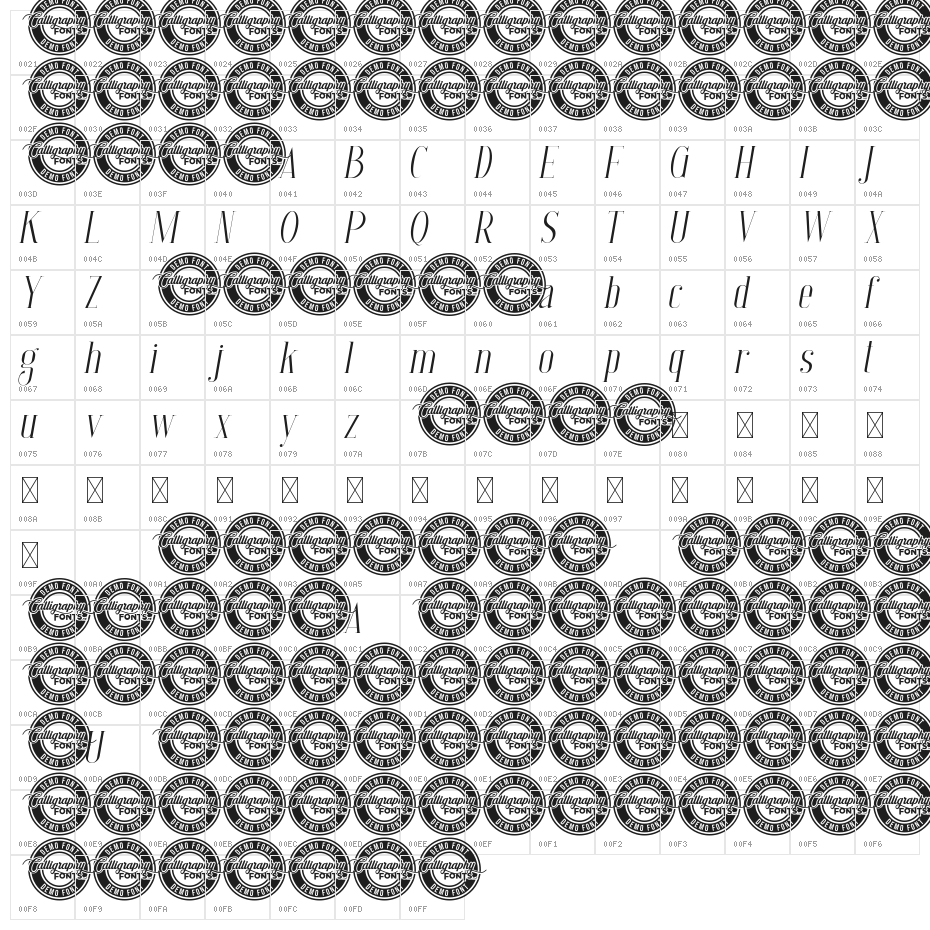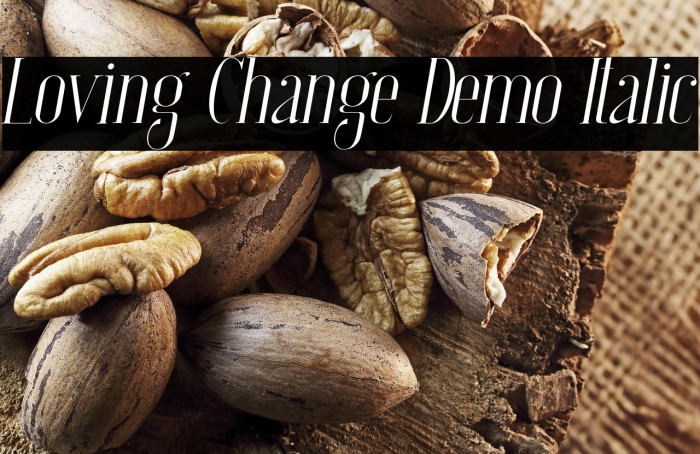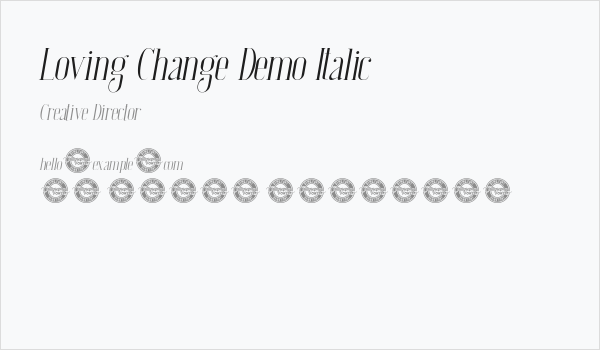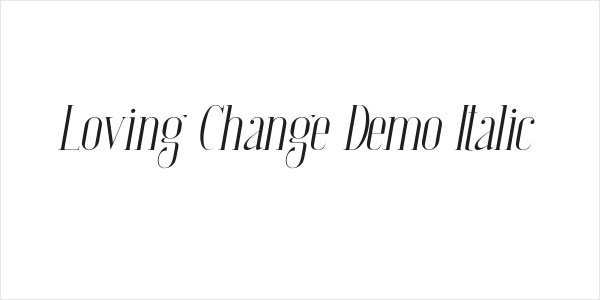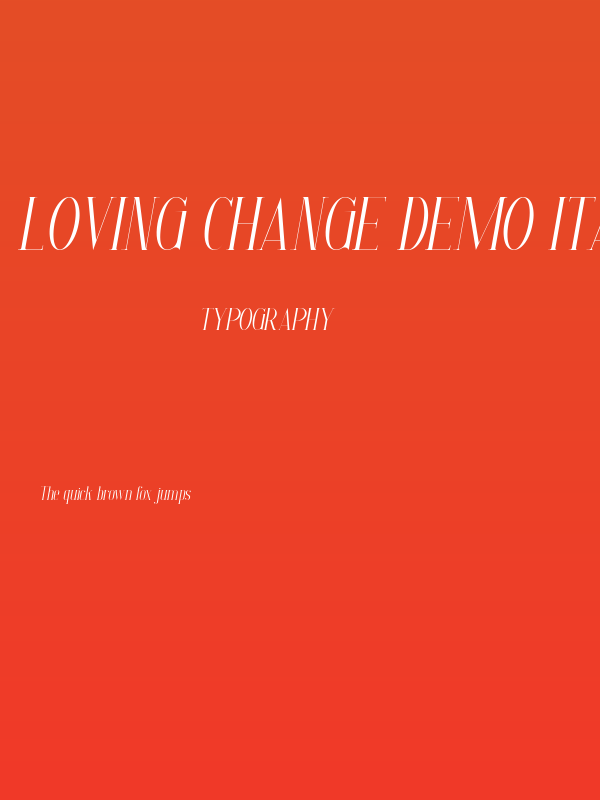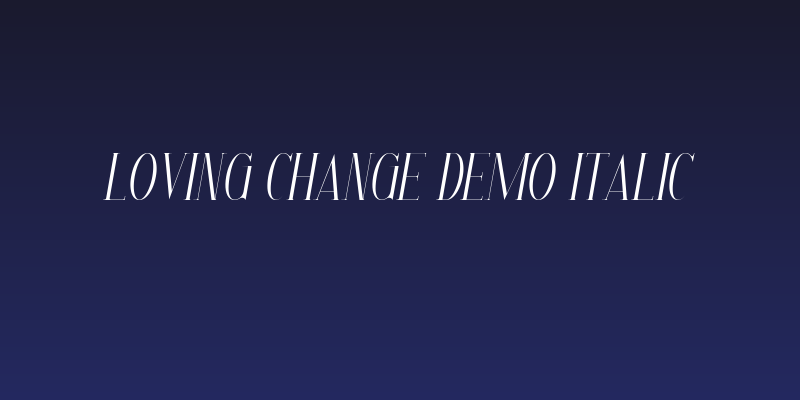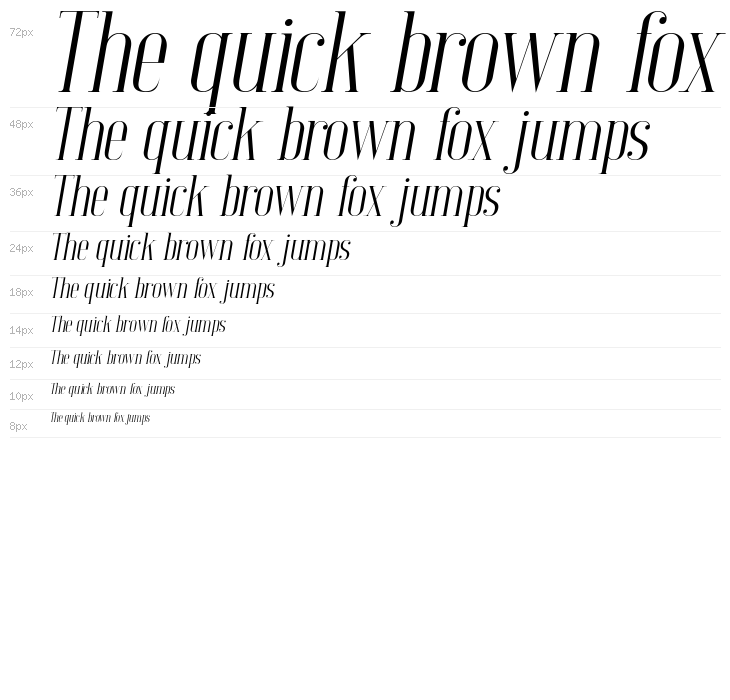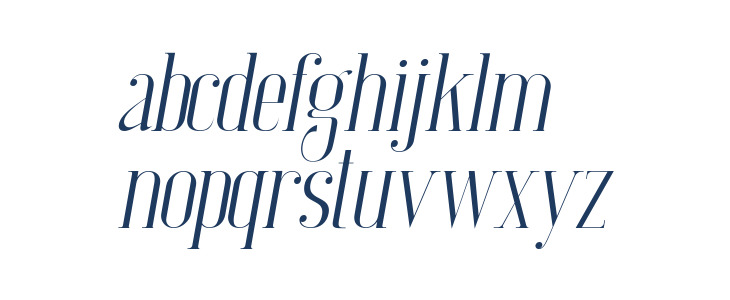
Loving Change Demo Italic Font
Loving Change Demo Italic Description
This elegant and sophisticated font features a high contrast between thick and thin strokes, giving it a refined and stylish appearance. The italicized form adds a sense of movement and grace, making it ideal for projects that require a touch of elegance. The characters are tall and slender, with a slight slant that enhances their dynamic look. The font's design is both modern and timeless, suitable for a variety of applications. Its clean lines and smooth curves make it highly readable, while the unique character shapes add a distinctive flair. This font is perfect for creating eye-catching headlines, logos, and branding materials that need to convey sophistication and style.
| Proposed Projects | Ideal for luxury branding, fashion magazines, elegant invitations, and sophisticated logos. |